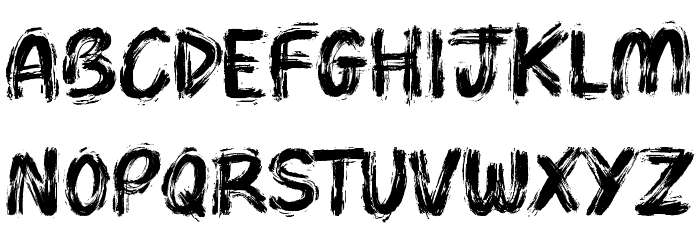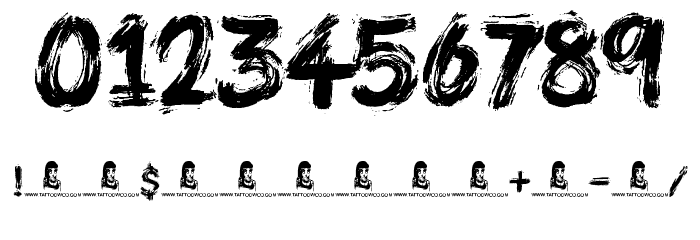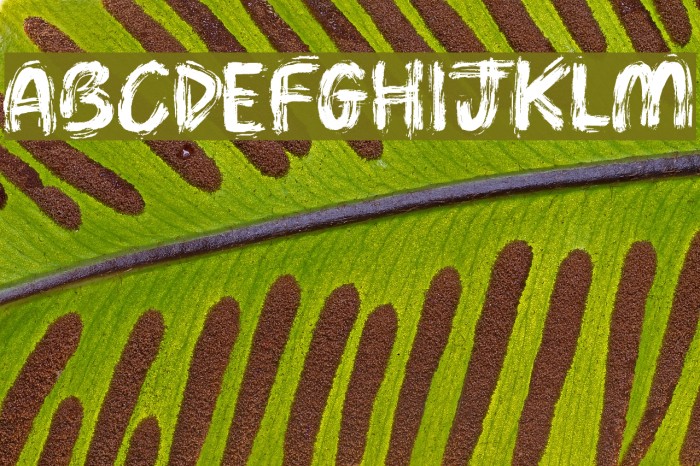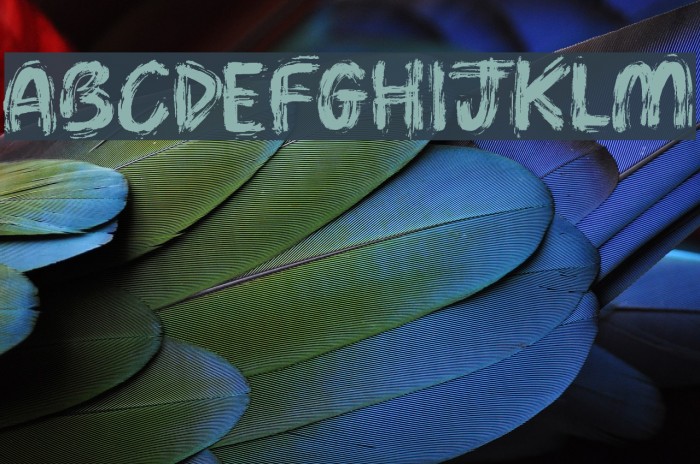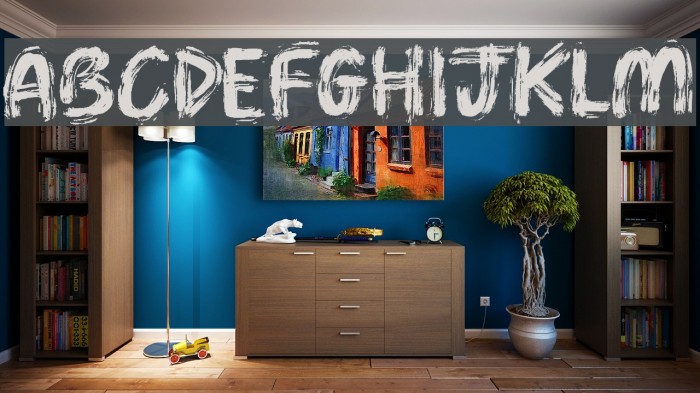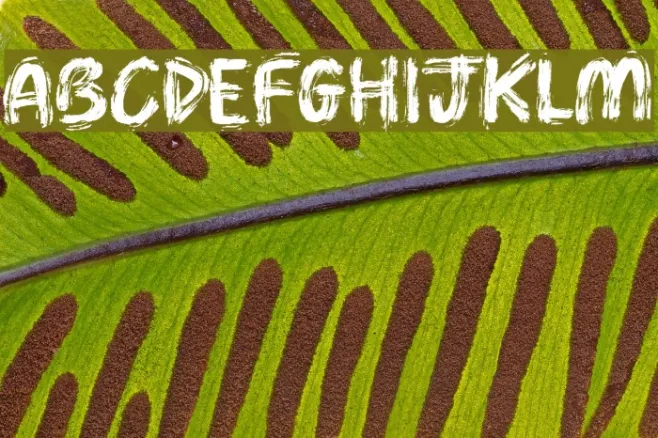
Brush Pains Font
This font features a bold, expressive brushstroke style that mimics the appearance of hand-painted letters. Each character is crafted with uneven edges and varying thickness, giving it a dynamic and energetic feel. The uppercase and lowercase letters maintain a consistent style, with the uppercase being slightly more pronounced. Numbers and special characters are equally bold and maintain the same brushstroke aesthetic. The overall look is raw and artistic, making it ideal for projects that require a touch of creativity and flair.
A bold, brushstroke-style font with an expressive, hand-painted look.
- Proposed Projects: Ideal for artistic projects, posters, album covers, and branding that requires a creative and bold statement.
- Overall Style: Artistic, Expressive
- Use Case: Headlines, Posters, Branding